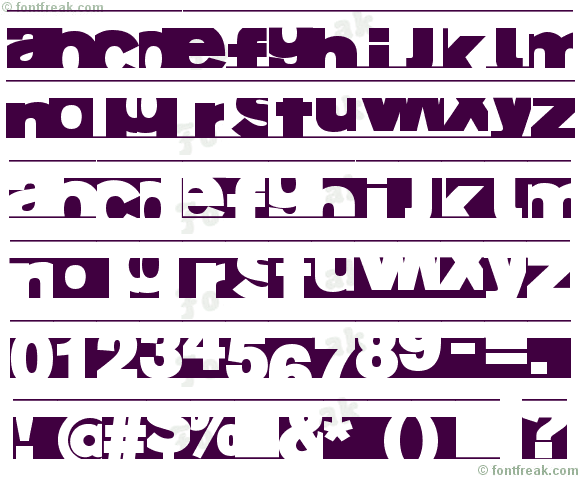
FragmentAZ
About Fragment AZ
Fragment AZ by Manfred Klein is a striking display font that stands out with its unique combination of boldness and sophistication. This freeware font, originally released in 1994 and revised in 2005, is characterized by its sharp, angular forms and a dynamic visual presence. The typeface features a medium stroke weight with variations that create an engaging contrast, making it suitable for eye-catching designs. The spacing is well-balanced, ensuring legibility while maintaining a modern aesthetic, and the addition of underlines adds a decorative flair that enhances its appeal.
Fragment AZ is an excellent choice for a variety of creative projects. Its bold, geometric shapes make it ideal for movie posters that seek to capture attention and convey a sense of drama. Additionally, it works well in branding for small businesses, especially those wanting to project a contemporary image. The font's unique style is also perfect for restaurant menus that aim to create an inviting atmosphere, as well as for event invitations where a touch of modern elegance is desired. Graphic designers and content creators will find Fragment AZ to be a versatile tool in their design arsenal.
The target audience for this font includes graphic designers, small business owners, and content creators looking for a distinctive typeface that can elevate their work. With its striking design and versatility, Fragment AZ is sure to make an impression.